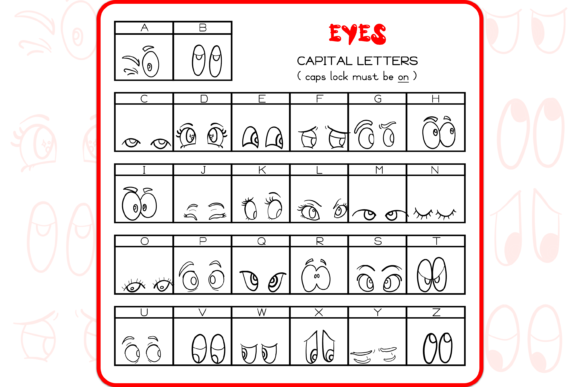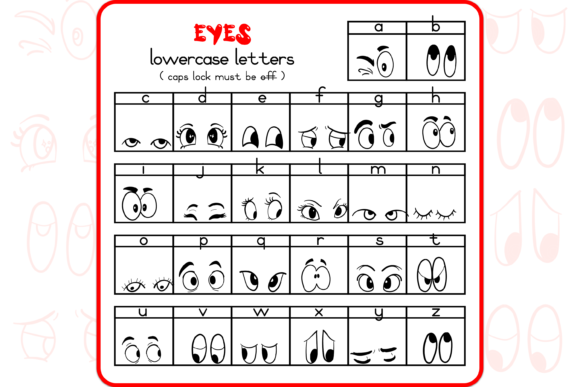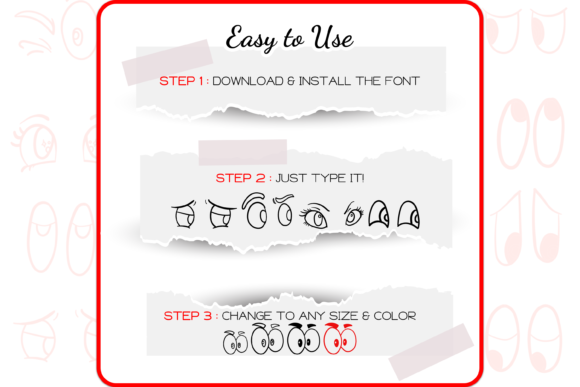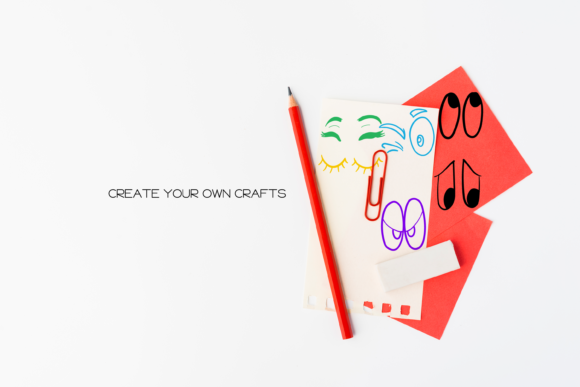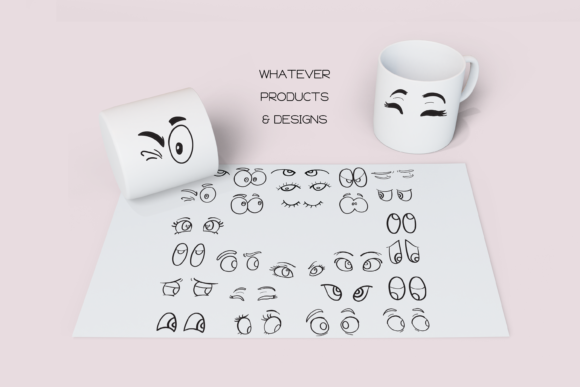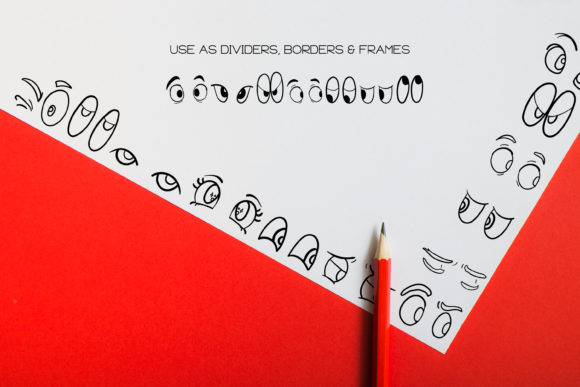
The Eyes Font
“The Eyes” is a unique and cute dingbats font that features 52 hand-drawn doodles of eyes. Adding this font to your creative ideas can make your artwork outstanding and give it a charming and distinctive touch.
With “The Eyes” font, you have a variety of eye-inspired symbols to choose from. Each doodle represents a different eye design, showcasing various shapes, expressions, and styles. Whether you want to create playful characters, emphasize emotions, or add an element of intrigue to your designs, this font provides a versatile resource.
The hand-drawn nature of the doodles adds a personal and artistic feel to your artwork. The attention to detail in capturing the intricacies of eyes can bring life and personality to your designs. You can use these doodles as decorative elements, icons, or even as focal points in your compositions.
One of the advantages of using “The Eyes” font is its ability to convey emotions and tell stories. Eyes are known as the windows to the soul, and incorporating them into your artwork can evoke feelings, create connections, and spark curiosity. Whether you’re working on illustrations, digital designs, or crafts, this font can add depth and engagement to your creations.
Consider experimenting with different combinations of eye doodles, playing with sizes, colors, and positions to create unique compositions. You can also mix and match “The Eyes” font with other fonts and graphic elements to create visually appealing designs that stand out.
“The Eyes” font is suitable for a wide range of creative projects, including posters, flyers, social media graphics, invitations, and more. Its cute and unique style makes it particularly appealing for children’s designs, whimsical illustrations, or any project where you want to bring a touch of playfulness and charm.
In summary, “The Eyes” is a unique and cute dingbats font that offers a collection of hand-drawn eye doodles to enhance your creative ideas. By incorporating these doodles into your artwork, you can make your arts outstanding and captivate viewers with the expressive power of eyes. So, add “The Eyes” font to your library and let it inspire your creativity.